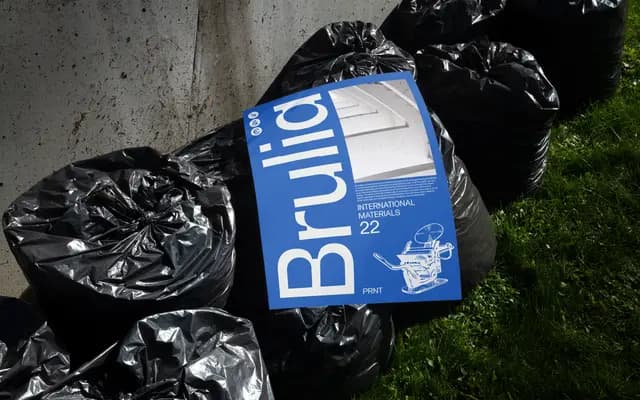
Brulia Variable
A variable sans-serif with ink traps, offered in Text and Display optical sizes for versatility across scales.
Brulia ships as a single variable font with two optical masters, Text and Display, letting it adapt from body copy to headline use. Ink traps are built into the design, giving the letterforms a slightly mechanical character that differentiates it from neutral grotesques. OpenType features include discretionary ligatures, ordinals and superscript, with alternate forms for A, O, a, o and several numerals.
Brulia is a sans-serif with ink trap detailing, a feature associated with grotesque and neo-grotesque typefaces designed for both text and display optical sizes. The ink traps are a functional and aesthetic characteristic rather than a purely decorative one.